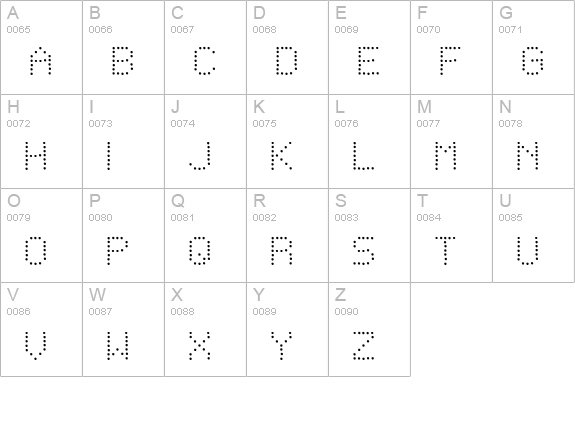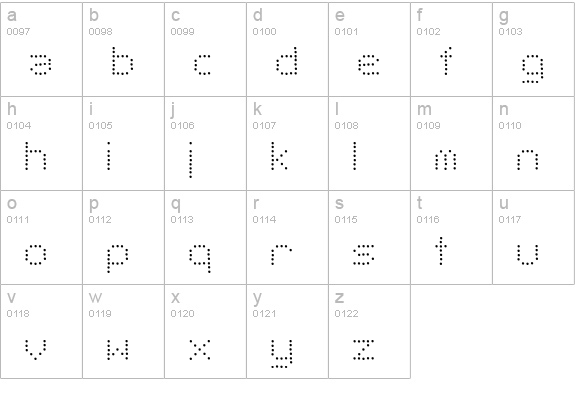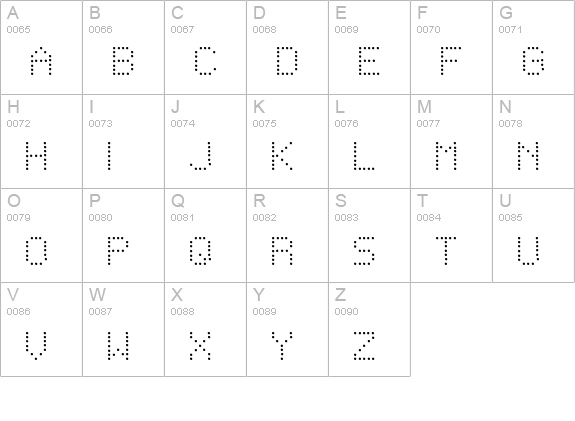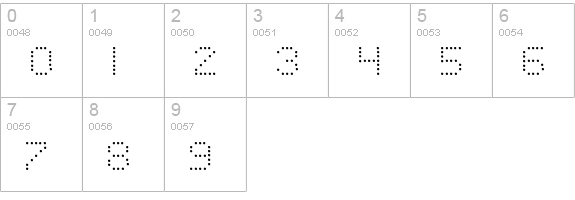
SF Telegraphic Light is a refined, elegant variant in the SF typeface family \xE2\x80\x94 well suited to elegant body text, refined sub-headings, and luxury branding.
SF Telegraphic Light is a visually striking and modern font that effortlessly captures the essence of futuristic design. With its clean lines and geometric shapes, this font is perfect for creating eye-catching headlines, logos, and titles. The light weight of the font adds a touch of elegance and sophistication to any project. One of the best things about SF Telegraphic Light is that it is absolutely free. This means that you can easily download and use it for both personal and commercial projects without any restrictions. Whether you are a graphic designer, a web developer, or simply someone who appreciates beautiful typography, SF Telegraphic Light is a font that you should definitely have in your collection. To get your hands on this amazing font, head over to FontsMarket.com, where you can freely download SF Telegraphic Light along with other fantastic fonts. FontsMarket.com is a trusted source for high-quality fonts, and their extensive library ensures that you will always find the perfect font for your creative endeavors. So why wait? Start using SF Telegraphic Light today and watch your designs come to life with its unique and contemporary style. Whether you are designing a website, creating a poster, or working on a branding project, SF Telegraphic Light is sure to make a lasting impression. Download it for free at FontsMarket.com and experience the power of this exceptional font for yourself.